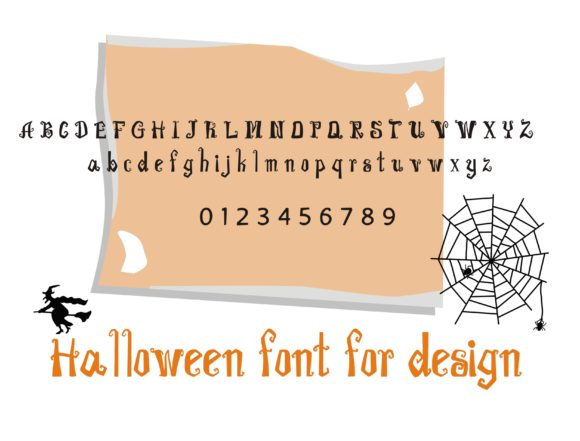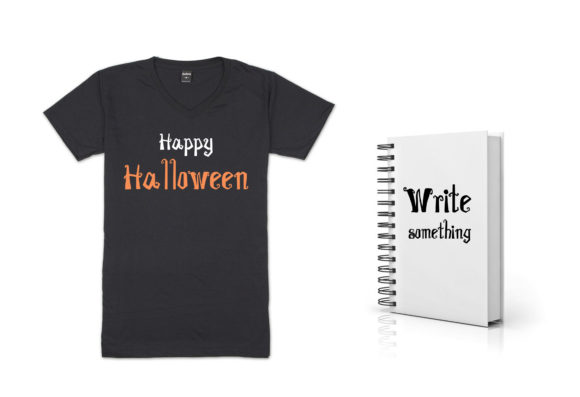
Unleash the Spookiness: A Comprehensive Guide to Halloween Font
Halloween is just around the corner, and with it comes the excitement of creating spooky and thrilling designs for party invitations, crafts, and other projects. One of the key elements that can make or break your design is the font you choose. If you’re looking for a font that embodies the spirit of Halloween, look no further than the Halloween Font. In this article, we’ll dive into the world of Halloween Font, exploring its features, uses, and tips on how to make the most of this fantastic font.
What is Halloween Font?
Halloween Font is a thick-lettered and spooky display font, specifically designed to add a touch of eeriness and excitement to your Halloween-related projects. Its bold and rugged texture makes it perfect for creating eye-catching titles, headings, and phrases that scream Halloween. Whether you’re a designer, crafter, or DIY enthusiast, this font is sure to inspire your creativity and help you conjure up some spooky magic.
Features of Halloween Font
So, what makes Halloween Font so special? Here are some of its key features:
- Thick-lettered and bold: Halloween Font is designed to make a statement. Its thick letters and bold texture make it perfect for creating eye-catching titles and headings.
- Spooky and eerie: This font is designed to evoke the spirit of Halloween. Its rugged texture and irregular shapes give it a spooky and eerie feel that’s perfect for the season.
- Versatile: Despite its spooky theme, Halloween Font is surprisingly versatile. You can use it for a wide range of projects, from party invitations and crafts to posters and social media graphics.
Using Halloween Font in Your Projects
Now that we’ve covered the features of Halloween Font, let’s talk about how to use it in your projects. Here are some ideas to get you started:
- Party invitations: Create spooky and thrilling party invitations that will set the tone for your Halloween bash.
- Crafts: Use Halloween Font to add a touch of eeriness to your Halloween crafts, such as jack-o’-lanterns, ghostly decorations, and spooky centerpieces.
- Posters and flyers: Create eye-catching posters and flyers for your Halloween events, such as haunted houses, zombie walks, and costume contests.
- Social media graphics: Use Halloween Font to create spooky and engaging social media graphics, such as Halloween-themed Facebook posts and Instagram stories.
Tips for Using Halloween Font
Here are some tips to help you make the most of Halloween Font:
- Experiment with colors: Halloween Font looks great in bold and bright colors, such as orange, black, and purple. Experiment with different color combinations to create a unique look.
- Mix and match: Don’t be afraid to mix and match Halloween Font with other fonts to create a unique and interesting look.
- Play with textures: Add some texture to your design by using Halloween Font with different textures, such as wood, stone, or blood.
In conclusion, Halloween Font is a fantastic font that’s perfect for adding a touch of spookiness and excitement to your Halloween-related projects. Its bold and rugged texture makes it versatile and easy to use, and its features make it perfect for a wide range of projects. Whether you’re a designer, crafter, or DIY enthusiast, Halloween Font is sure to inspire your creativity and help you conjure up some spooky magic. So why wait? Download Halloween Font today and start creating your own spooky masterpieces!